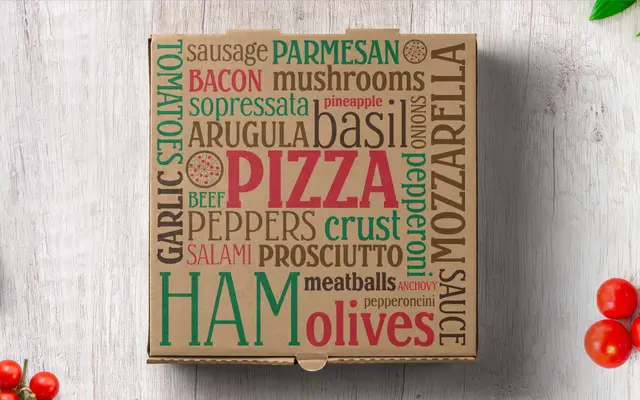
Margherita
A slab serif drawn from Italian street lettering, blending art deco warmth with art nouveau OpenType alternates across five weights.
Rooted in the hand-lettered signs found on Italian streets, Margherita fuses slab serif construction with art deco character and optional art nouveau flourishes via OpenType alternates. Five weights from Light to Black give adequate typographic range, and the character set covers over 200 languages across Europe, the Americas, Africa and Vietnam. Released as an open source project, with fonts and source files freely available on GitHub.
Combines slab serif letterforms with art deco proportions and art nouveau alternates, rooted in Italian vernacular sign lettering traditions.